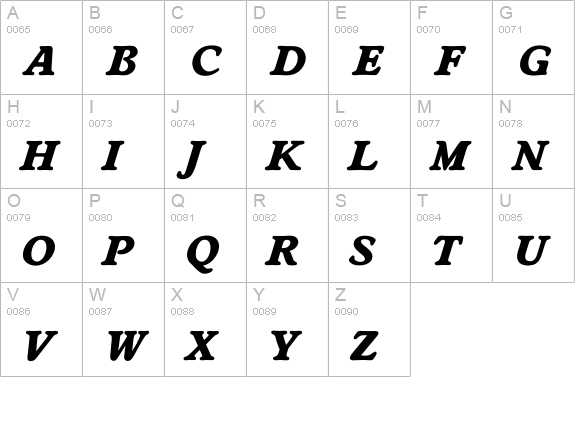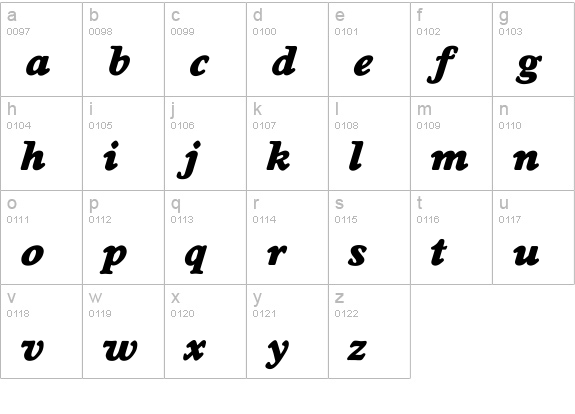
Iworchester ExtraBold Font Details
Iworchester ExtraBold is an extra-heavy, attention-grabbing variant in the Iworchester typeface family \xE2\x80\x94 well suited to high-impact headlines, posters, and bold branding.
Introducing Iworchester ExtraBold font, the epitome of boldness and strength in typography. This font exudes confidence with its thick, powerful lines and commanding presence on any design project. With its distinctive and unique character, Iworchester ExtraBold is the perfect choice for headlines, titles, and logos that demand attention. This font is freely available to download at FontsMarket.com, allowing designers, creatives, and enthusiasts to effortlessly incorporate this masterpiece into their work. Whether you're designing a poster, a website, or a branding project, Iworchester ExtraBold will add a touch of sophistication and professionalism. The sharp, clean edges of each letter ensure legibility and readability, even at smaller sizes. Its generous spacing and balanced letterforms create a harmonious and visually pleasing composition, making it a versatile font for both digital and print media. Iworchester ExtraBold was meticulously crafted by a team of skilled typographers who have paid attention to every detail. Each glyph has been carefully designed, resulting in a font that is visually striking and aesthetically pleasing. Its strong presence on the page is both eye-catching and visually appealing, making it an ideal choice for projects that require a bold, modern, and impactful look. Whether you're designing a poster, a logo, or a website, Iworchester ExtraBold will elevate your design to new heights. Its bold and confident personality will captivate viewers, leaving a lasting impression. Download Iworchester ExtraBold for free at FontsMarket.com and experience the unparalleled power and versatility of this extraordinary font.